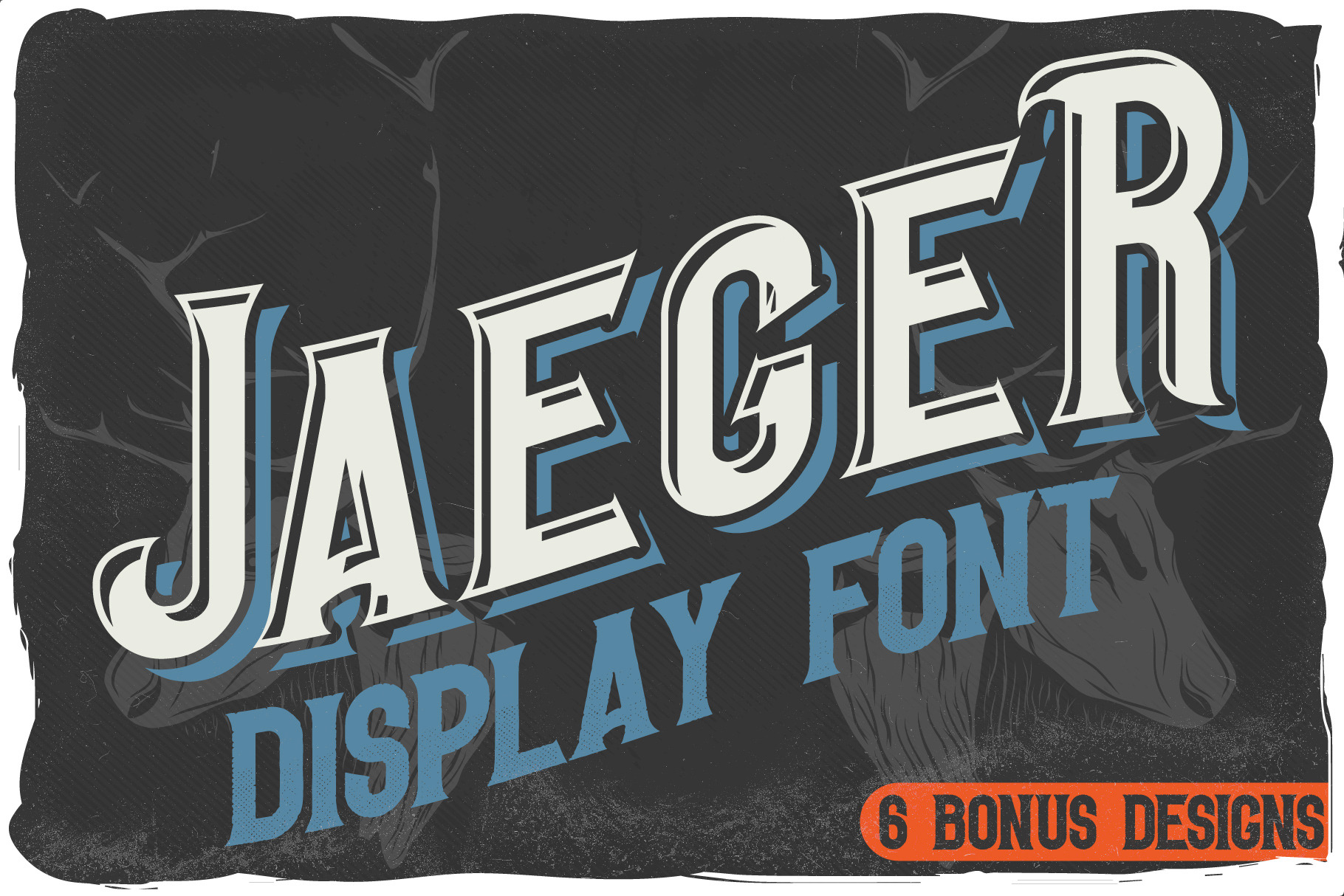
Jaeger font + 6 bonus illustrations
Introducing my newest font called "Jaeger". It has wide language support of multilingual characters and ligatures (check out all available characters in previews). Bonus 6 t-shirt designs..This font will look good on any vintage-styled designs like a poster, T-shirt, label, logo, etc.
- A lot of additional symbols, alternative characters, multilingual support, and ligatures.
Hunting season is coming! An awesome collection of hunting designs will be really good for any hunting companies and events. You can use the font and the elements of the set for the creation of any design for your purposes with minimal loss of time. The designs can be used for patches, labels, badges, signs, symbols, stickers, cups, pins, bags, caps, apparel, products for men, packaging design, and much more. The old-school style badges will be suitable for the creation of promotional materials for the advertisement of hunting companies, events, hunting and fishing clubs, stores, shops.